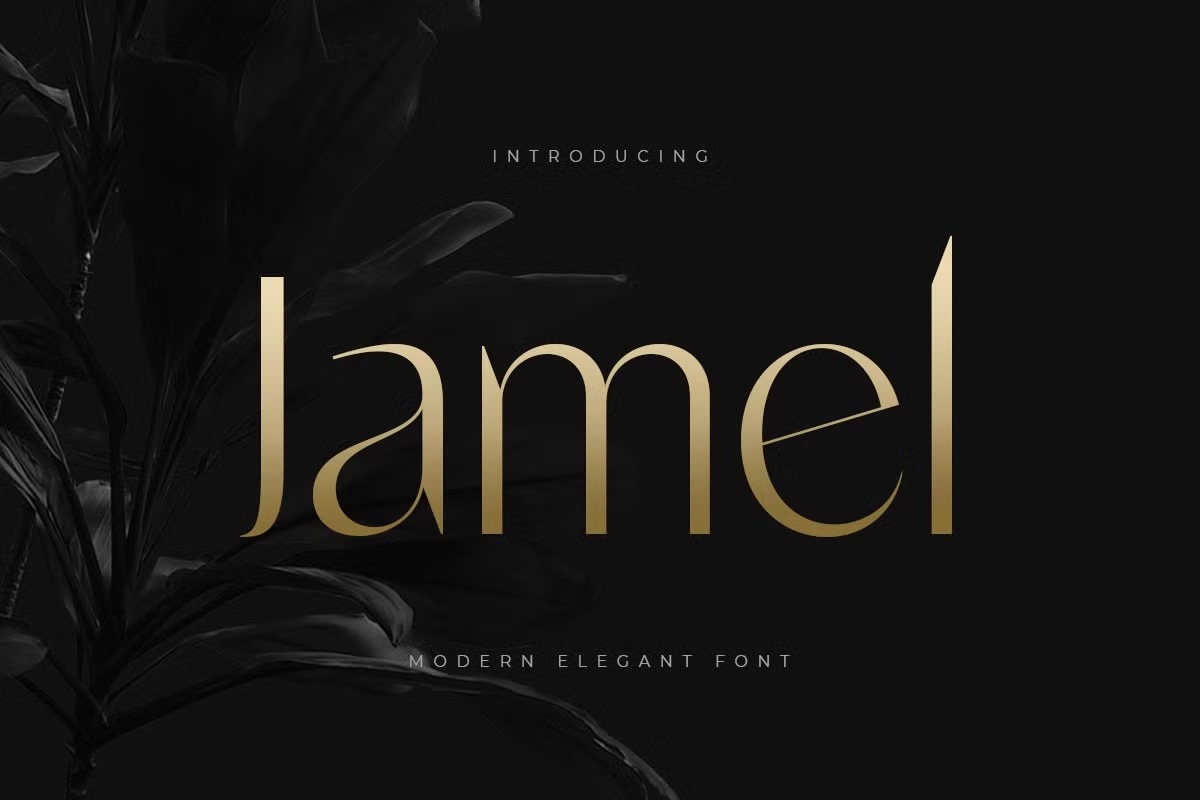
Jamel - Modern Elegant Font
Jamel delivers modern luxury elegance with sharp, sophisticated letterforms that elevate any design project. This distinctive Sans Serif typeface was specially crafted for headlines, titles, and standout typography applications. The sharp geometric shapes create a classy, refined aesthetic that commands attention while maintaining perfect readability. With extra ligature combinations, Jamel offers creative flexibility for unique style variations and modern appeal. Whether you're designing luxury...